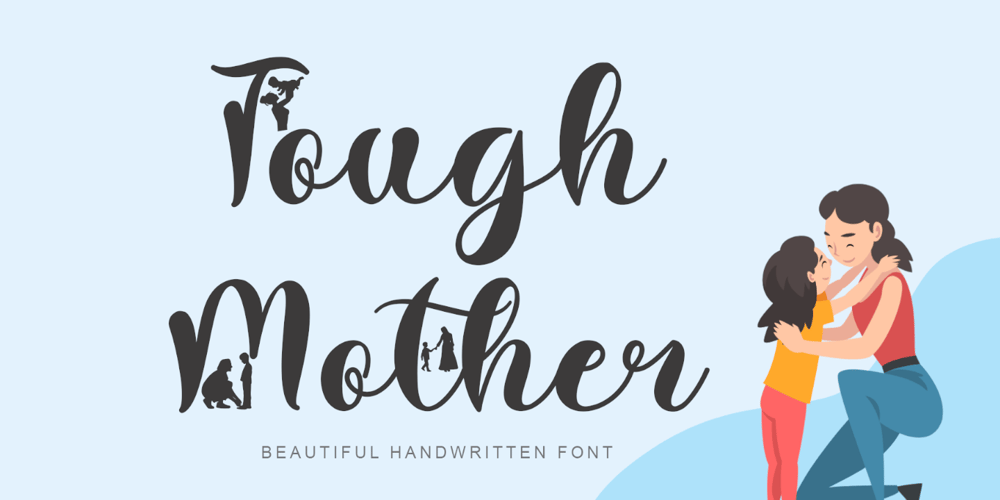
Tough Mother Font Family was designed by Isroni Yoga Prasetya and published by Yoga Letter. Tough Mother contains 1 styles and family package options. “Tough Mother” is a very unique handwritten font decorated with a mother and her child. This font is very rare and unique. Equipped with uppercase letters, lowercase letters, numerals, punctuation, ligatures, and multilingual support. Very suitable for Easter, spring, Mother’s Day, international women’s day, and others, Christmas, and others.